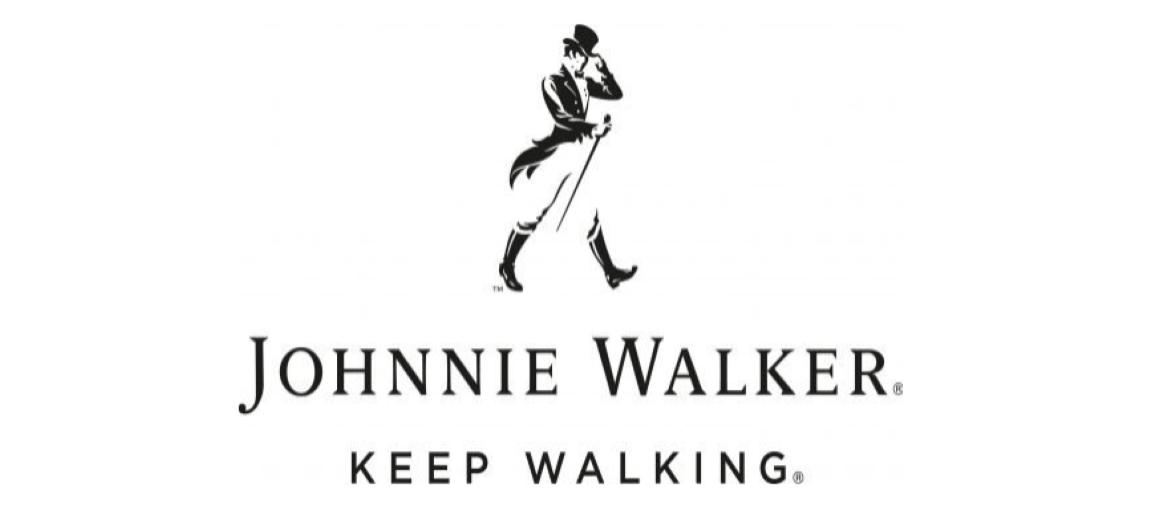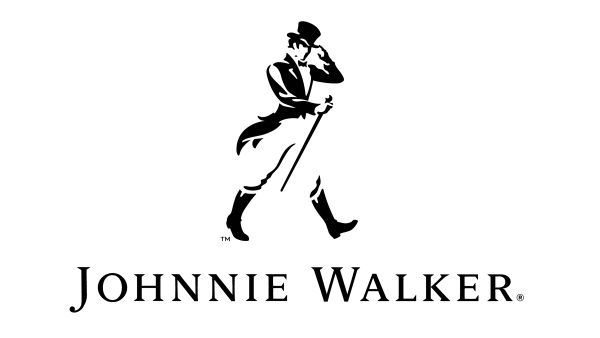
Johnnie Walker Font
What Font is Johnnie Walker?
The Johnnie Walker Font used in the branding for the whisky brand is very close in style to Hess Old Style RR Expert — a refined serif typeface with elegant proportions, subtle serifs, and a timeless, classic character. For designers seeking the same distinguished aesthetic without licensing the premium typeface, a free alternative font that captures the same stately and historic serif feel is available.
About Johnnie Walker
Johnnie Walker is a renowned Scotch whisky brand first established in Scotland in the early 19th century. Over time, it has grown into one of the most widely–recognized and distributed whisky brands in the world. The visual identity—particularly the typography of its word-mark—reflects heritage, sophistication, and continuity.